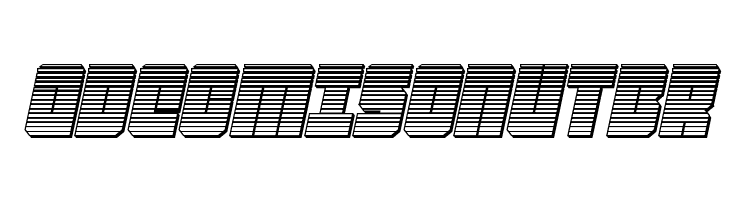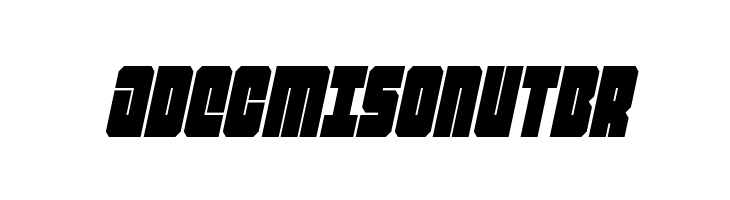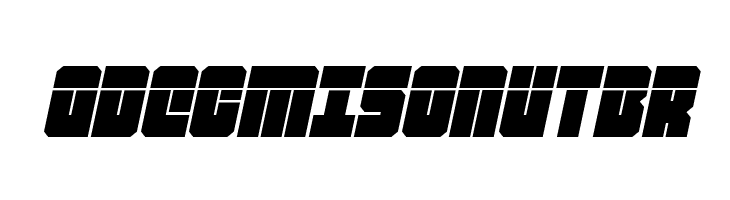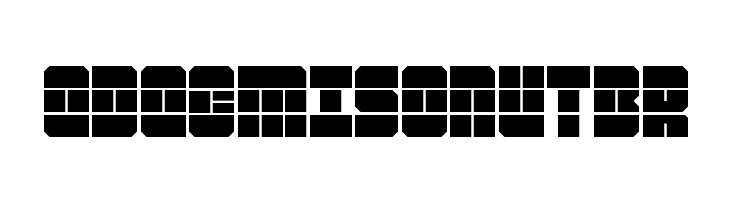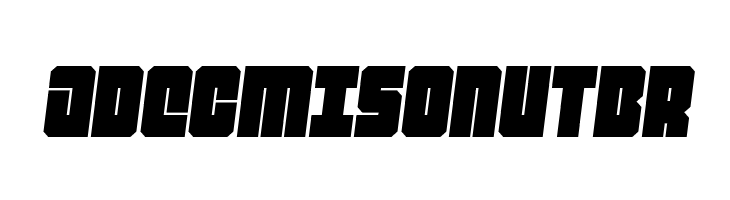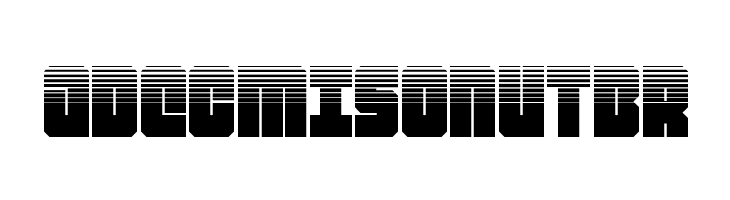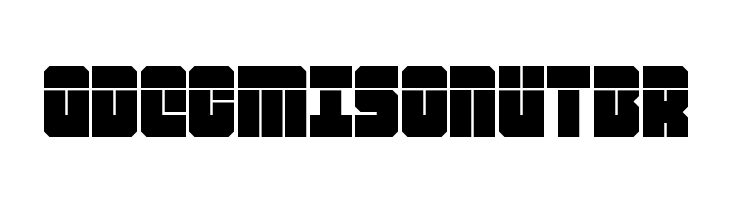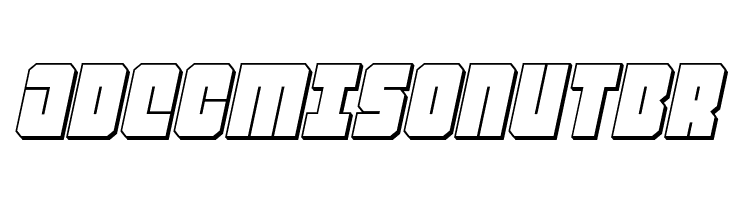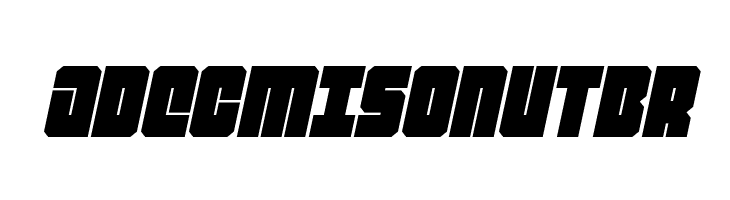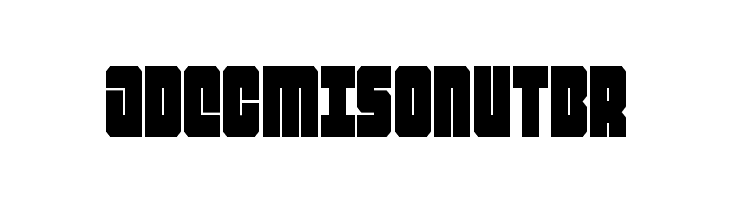
• Homebase Low Laser Italic
A bold, angular, and futuristic font with an italic slant, perfect for modern and edgy designs.
• Homebase Chrome Italic
A bold, striped, three-dimensional italic font with a futuristic and dynamic style.
• Homebase Condensed Italic
A bold, condensed, and italicized font with a dynamic and geometric style.
• Homebase Laser Italic
A bold, angular, and italicized font with a futuristic and dynamic style.
• Homebase Duo-Laser
A bold, geometric font with a blocky, futuristic design.
• Homebase Semi-Italic
Bold, geometric font with a semi-italic slant and strong visual impact.
• Homebase Halftone
A bold, geometric font with a halftone effect, ideal for retro or tech-inspired designs.
• Homebase Laser
• Homebase 3D Italic
A bold, 3D italic font with a geometric, modern style.
• Homebase Italic
A bold, italicized font with a strong, dynamic presence and angular design.
• Homebase Condensed
A bold, condensed, and geometric font with a modern appeal.
• Homebase Super 3D
A bold, 3D geometric font with a retro, blocky style.
• Homebase Gradient Italic
Bold, italicized font with a gradient effect created by horizontal lines.
• Homebase Gradient
A bold, geometric font with a striped gradient effect.
• Homebase
A bold, geometric font with a modern, industrial aesthetic.
• Homebase Chrome
A bold, geometric font with a 3D effect created by horizontal lines.
• Homebase Super-Italic
A bold, italic, and angular font with a futuristic style.